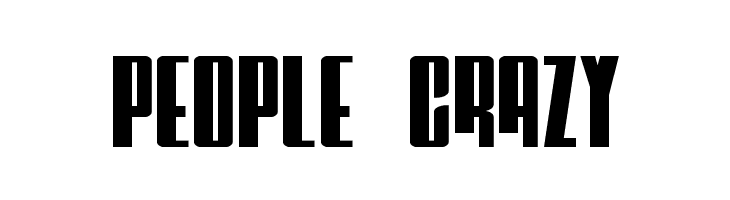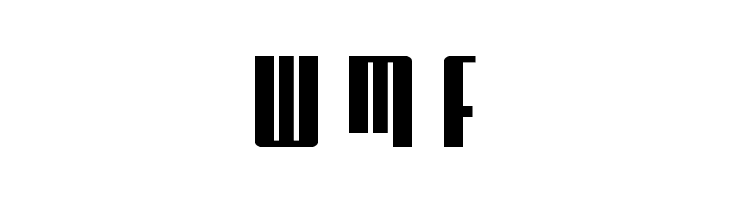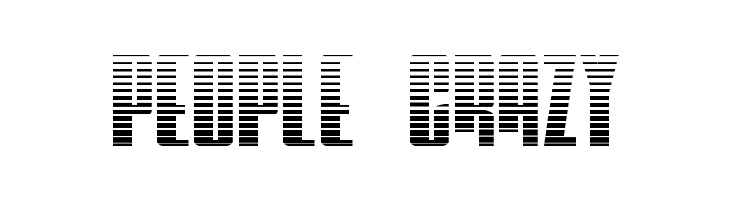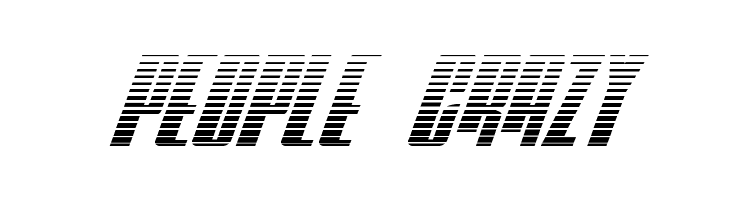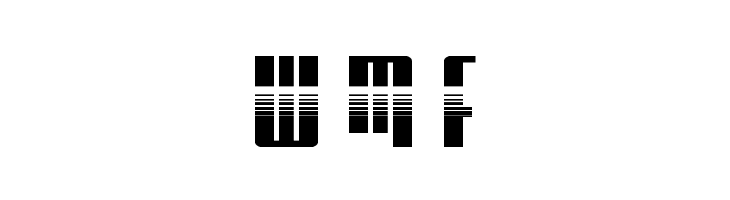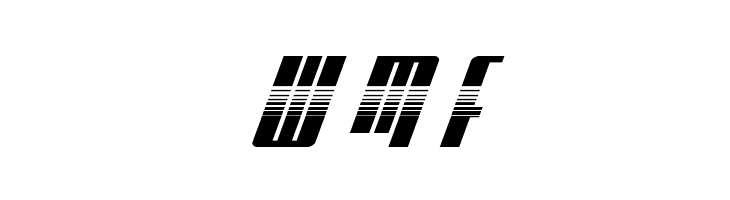
Vindicator Condensed Italic Font
Font by Daniel Zadorozny - www.iconian.com
A bold, italic, and condensed font with a dynamic and modern style.
Vindicator Expanded Font
Font by Daniel Zadorozny - www.iconian.com
A bold, geometric font with a futuristic and commanding presence.
Vindicator Expanded Italic Font
Font by Daniel Zadorozny - www.iconian.com
A bold, expanded, and italicized font with a modern, angular design.
Vindicator Gradiant Font
Khurasan
A bold, modern font with a unique gradient effect created by horizontal lines.
Vindicator Gradiant Italic Font
Khurasan
A bold, italicized font with a dynamic gradient pattern and futuristic style.
Vindicator Gradient Italic Font
Font by Daniel Zadorozny - www.iconian.com
Bold, italicized font with a gradient effect and dynamic style.
Vindicator Gradient Regular Font
Font by Daniel Zadorozny - www.iconian.com
A bold, geometric font with a gradient effect created by horizontal lines.
Vindicator Halftone Font
Khurasan
A bold, geometric font with a halftone effect, perfect for dynamic and modern designs.
Vindicator Halftone Italic Font
Khurasan
A bold, italicized font with a halftone effect and dynamic horizontal lines.
Vindicator Italic Font
Font by Daniel Zadorozny - www.iconian.com
A bold, italicized font with a dynamic and modern style.
Vindicator Laser Font
Khurasan
A bold, futuristic font with sharp angles and a geometric style.
Vindicator Laser Italic Font
Font by Daniel Zadorozny - www.iconian.com
A bold, italicized font with a futuristic and dynamic design.
Vindicator Laser Regular Font
Font by Daniel Zadorozny - www.iconian.com
A bold, futuristic font with sharp angles and geometric shapes.
Vindicator Leftalic Font
Font by Daniel Zadorozny - www.iconian.com
A bold, left-leaning font with sharp angles and a dynamic style.
Vindicator Outline Font
Yono Asmadiputra
A bold, outlined font with geometric precision and strong visual impact.
Vindicator Outline Italic Font
Font by Daniel Zadorozny - www.iconian.com
A bold, italicized outline font with a modern, angular design.
Vindicator Outline Regular Font
Font by Daniel Zadorozny - www.iconian.com
A bold, geometric outline font with a modern, industrial feel.
Vindicator Regular Font
Font by Daniel Zadorozny - www.iconian.com
A bold, geometric font with sharp angles and tight spacing.
Vindicator Semi-Italic Font
Yono Asmadiputra